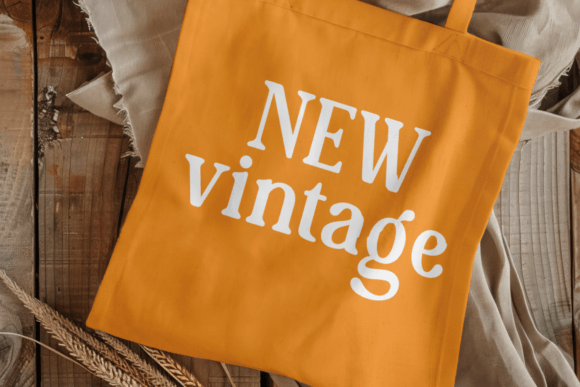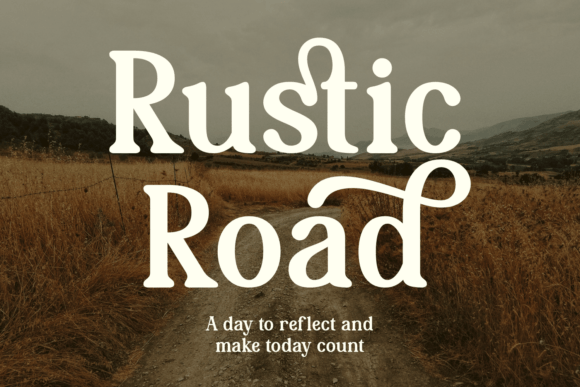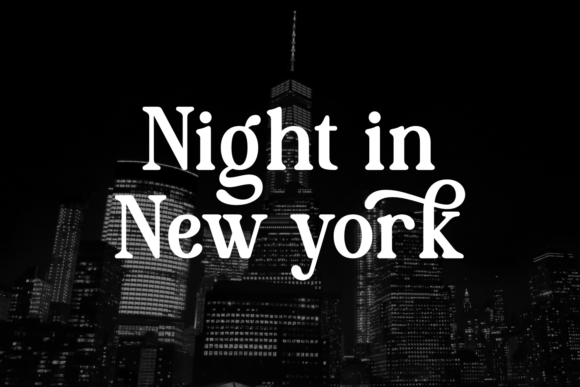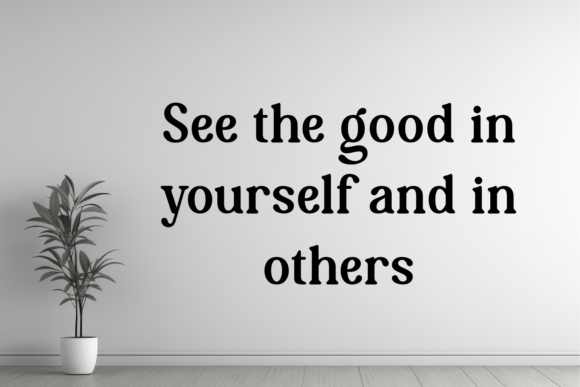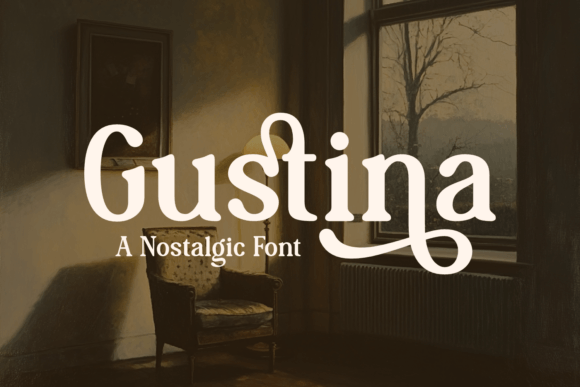
Gustina Font: A Timeless Serif Font for Elegant Designs
Are you looking for a font that can add a touch of warmth and nostalgia to your designs? Look no further than Gustina Font. This charming serif font is perfect for creating elegant and inviting designs that evoke a sense of classic sophistication. In this article, we’ll take a closer look at Gustina Font and explore its features, benefits, and uses.
The Classic Charm of Gustina Font
Gustina Font is a serif font that draws inspiration from traditional letter shapes found in old books and vintage designs. Its classic curves and soft edges give it a warm and nostalgic feel that’s perfect for creating designs that stand the test of time. Whether you’re working on a book cover, magazine layout, or branding project, Gustina Font is a great choice for adding a touch of elegance and sophistication.
Elegant Curves and Soft Edges
One of the standout features of Gustina Font is its elegant curves and soft edges. The font’s smooth lines and rounded edges give it a gentle, approachable feel that’s perfect for creating inviting designs. The elegant curves also add a touch of sophistication and luxury, making Gustina Font perfect for high-end branding and design projects.
Gustina Font is a versatile font that’s perfect for a wide range of design projects. Here are some ideas for using Gustina Font in your designs:
• Book Covers: Gustina Font is perfect for book covers, especially for fiction and non-fiction books that require a classic, elegant look.
• Magazine Layouts: Use Gustina Font to create beautiful magazine layouts that are both elegant and easy to read.
• Branding: Gustina Font is a great choice for branding projects that require a sophisticated, high-end look.
• Packaging: Use Gustina Font to create beautiful packaging designs that stand out on store shelves.
• Web Design: Gustina Font can also be used in web design to create elegant and inviting website layouts.
Benefits of Using Gustina Font
Here are some benefits of using Gustina Font in your designs:
• Timeless Beauty: Gustina Font has a timeless beauty that will never go out of style.
• Elegant and Inviting: The font’s elegant curves and soft edges make it perfect for creating inviting designs.
• Versatile: Gustina Font can be used in a wide range of design projects, from book covers to web design.
• Easy to Read: The font’s clear and classic letter shapes make it easy to read, even at small sizes.
Tips for Using Gustina Font
Here are some tips for using Gustina Font in your designs:
• Use it with a Simple Background: Gustina Font looks best with simple backgrounds that allow the font to take center stage.
• Experiment with Font Sizes: Try using Gustina Font in different font sizes to create visual interest and hierarchy.
• Pair it with Other Fonts: Gustina Font can be paired with other fonts to create a unique and interesting design.
In conclusion, Gustina Font is a charming serif font that’s perfect for creating elegant and inviting designs. Its classic letter shapes, elegant curves, and soft edges make it a great choice for a wide range of design projects. Whether you’re a designer, craft, or DIY enthusiast, Gustina Font is a great addition to your font collection.